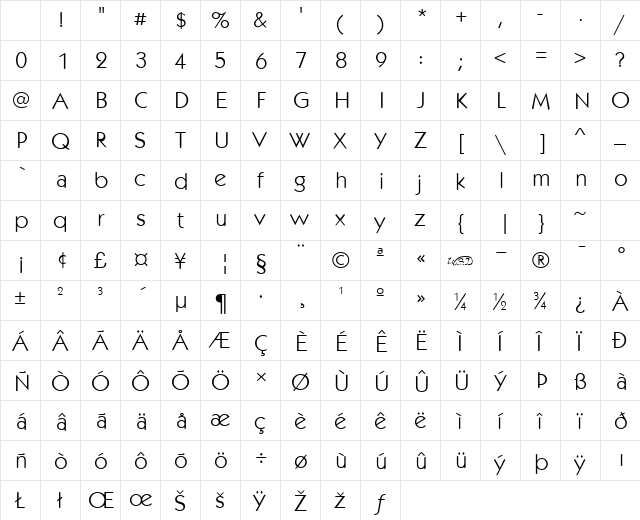
KabobLight is a composed and adaptable typeface that performs quietly and consistently across a wide range of design contexts. Its slender proportions lend an understated elegance to any composition.